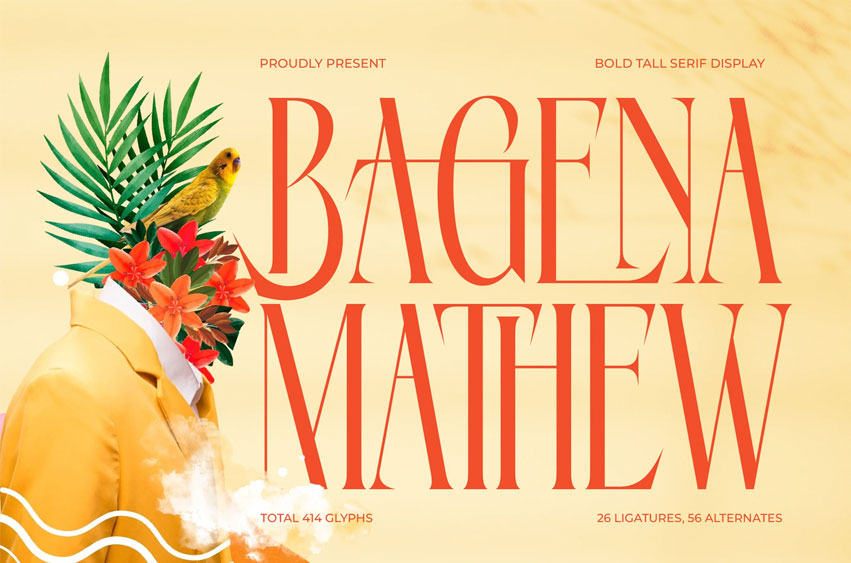
Bagena Mathew Font
Bagena Mathew Font is a bold, tall, serif display font that combines elegance and sophistication in a modern form. With 26 ligatures and 56 alternates across 414 total glyphs, it offers a refined yet artistic look ideal for high-end branding, magazine layouts, posters, and packaging.
Its elongated proportions and stylish curves make Bagena Mathew perfect for designs that aim to capture luxury, confidence.